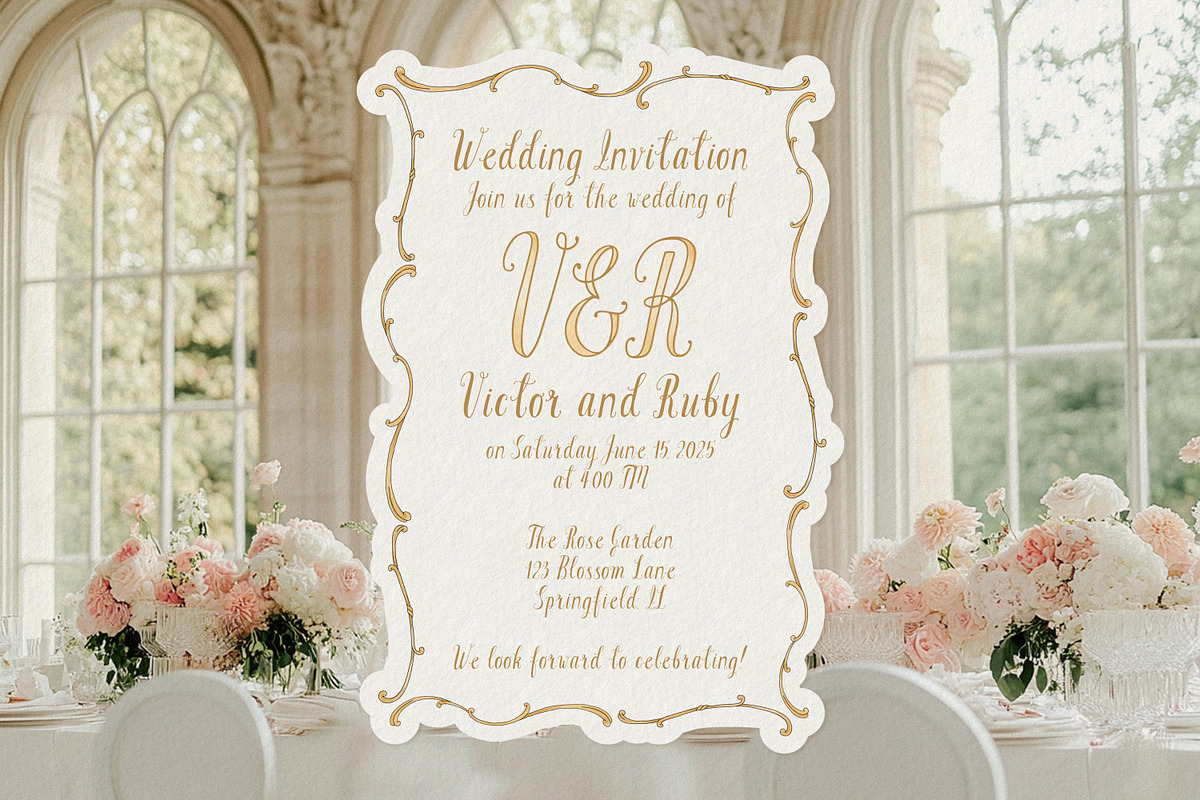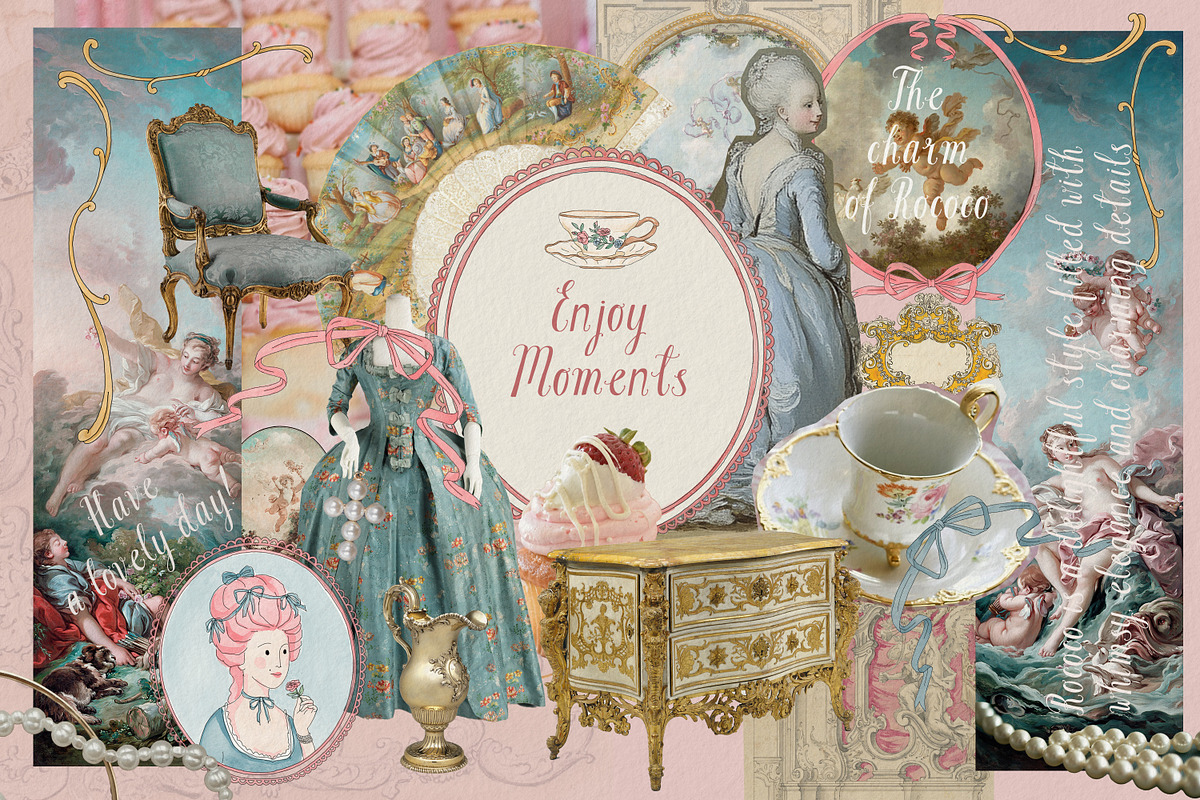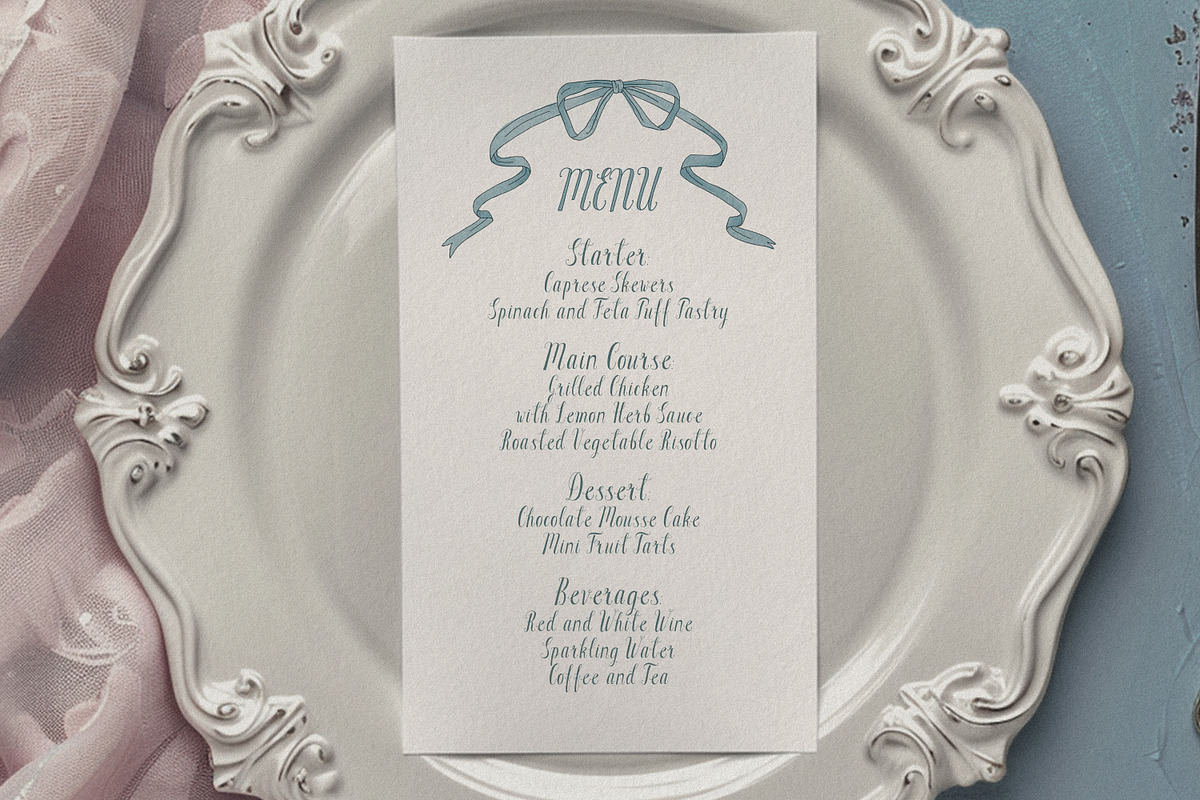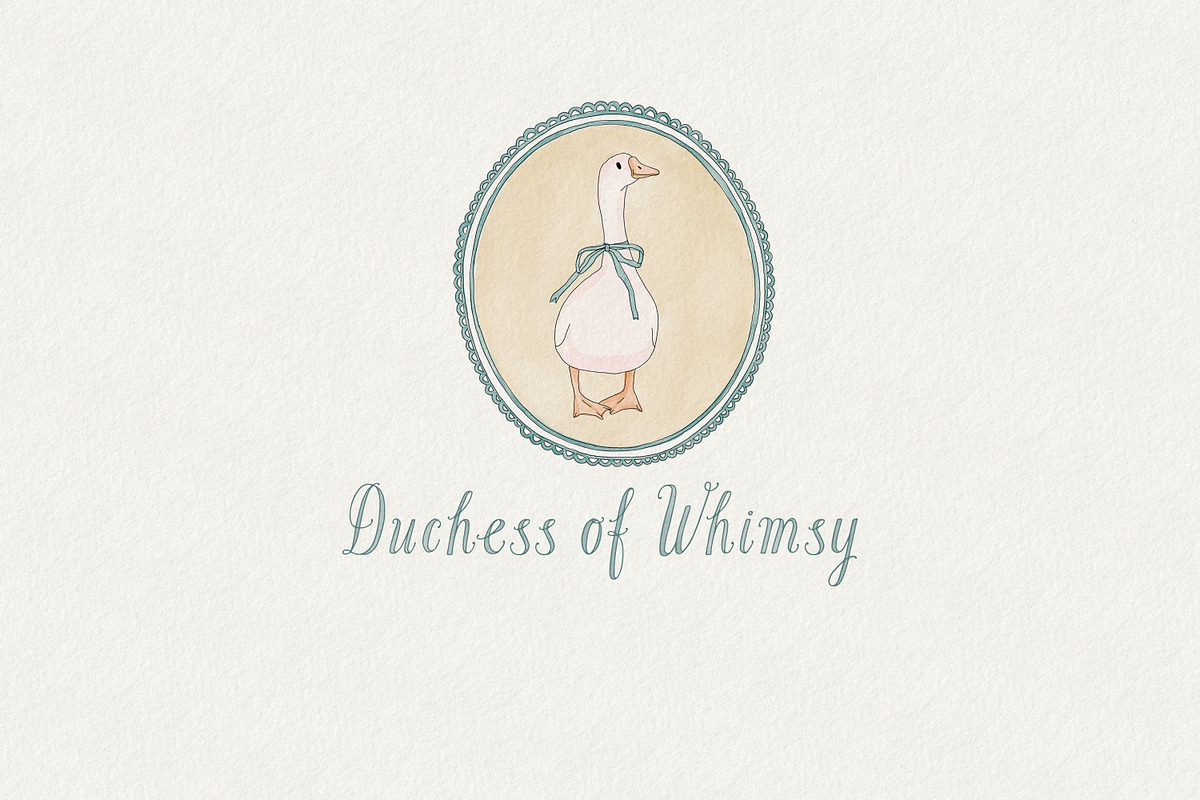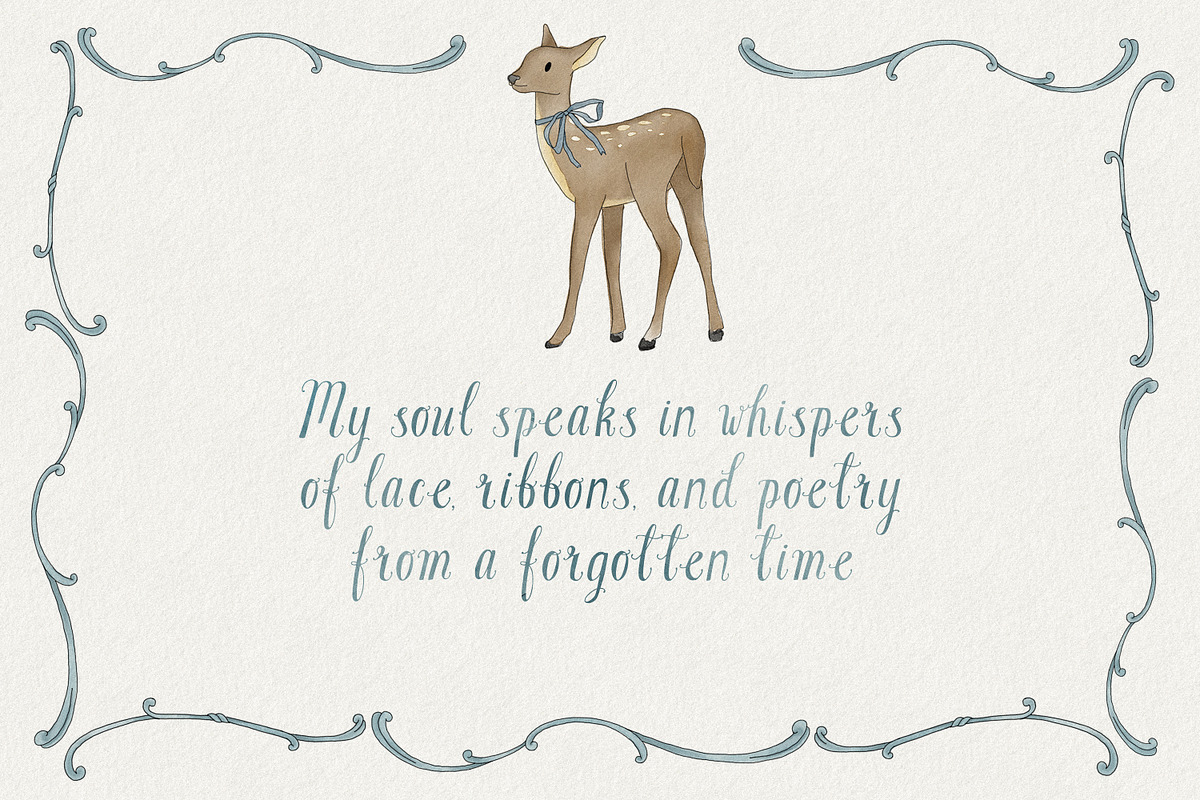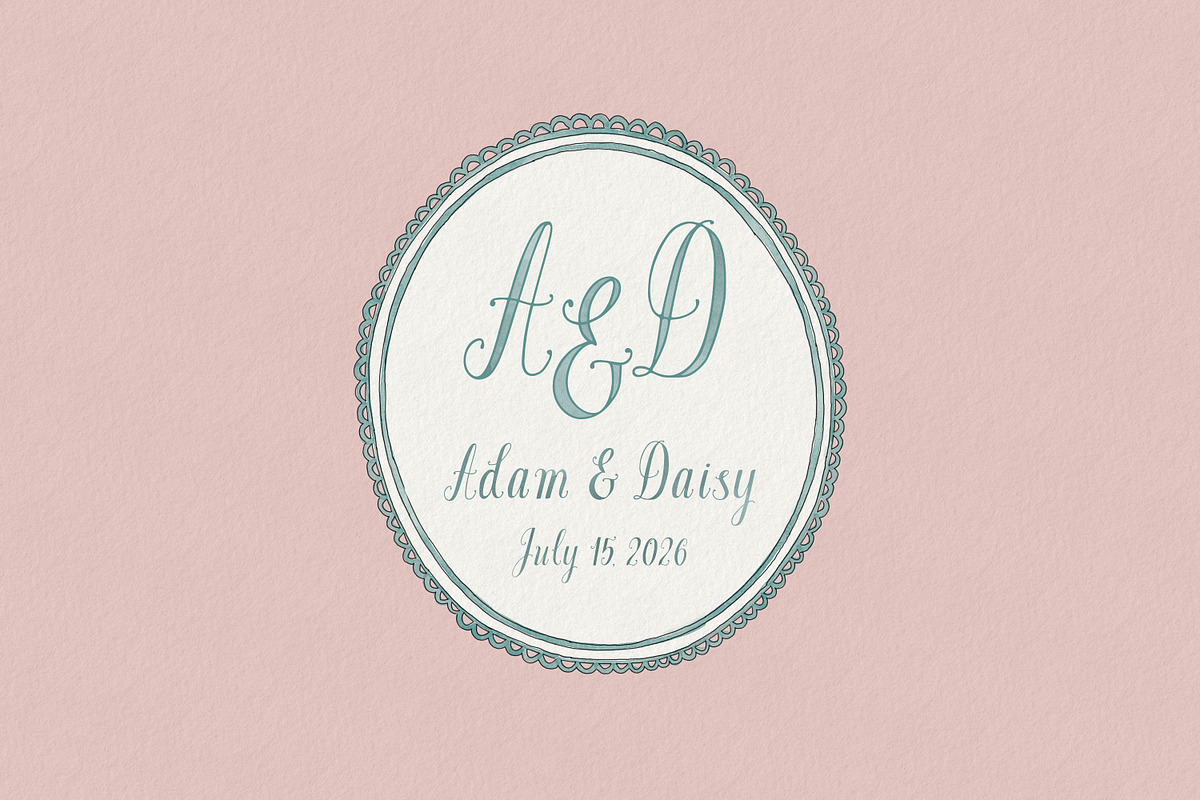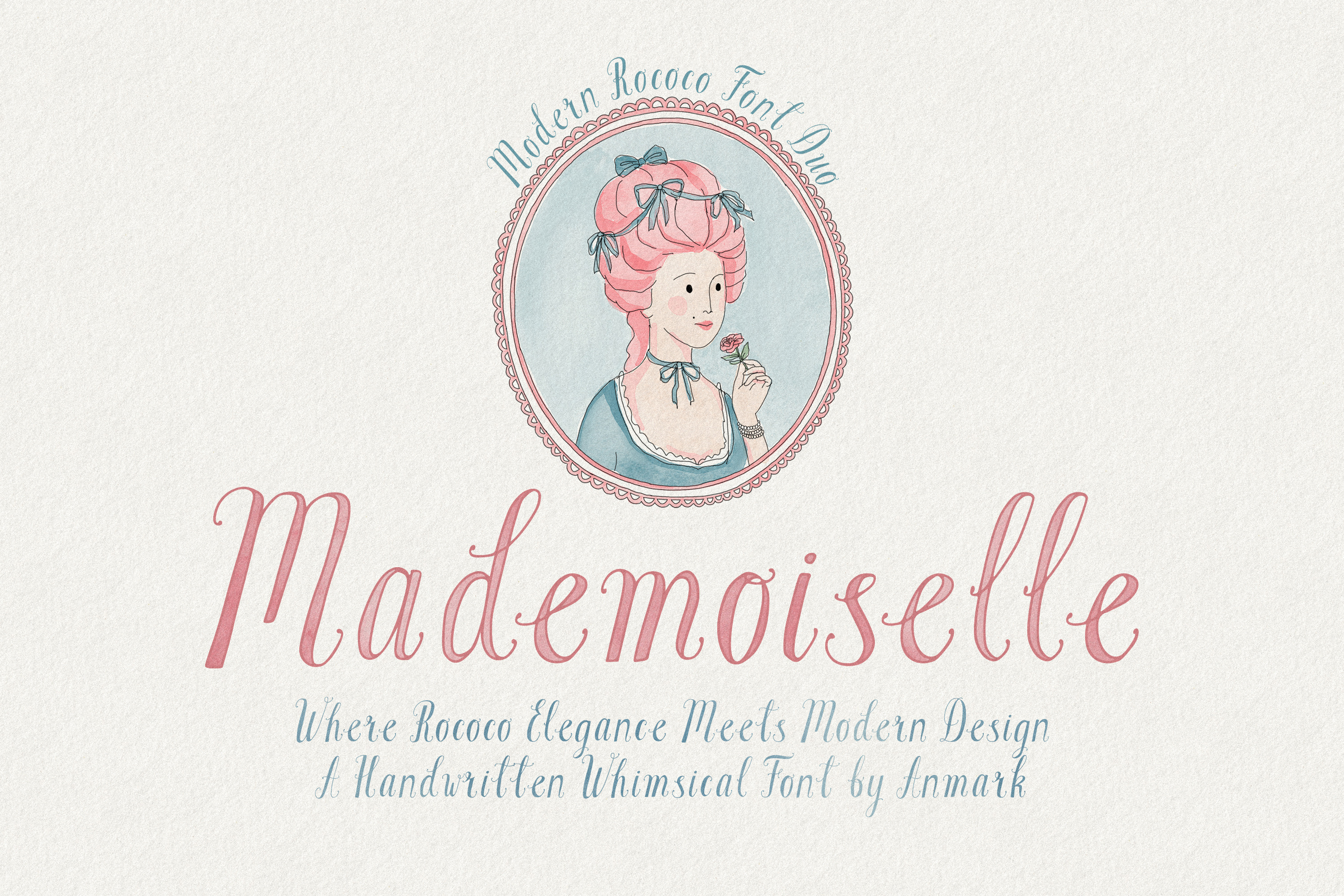
Mademoiselle Modern Rococo Font Duo
Mademoiselle is a refined Rococo Revival font duo that combines historical elegance with modern versatility. Inspired by the ornamental beauty of the 18th century, it brings a sense of sophistication and charm to any design. The typeface includes two styles: Regular, a delicate outline font with a graceful, vintage feel, and Bold, a full-bodied version perfect for making an impression. These styles work beautifully together or independently, offering flexibility for various creative projects.
The font supports multiple languages and includes a full set of uppercase and lowercase letters, punctuation, numerals, and carefully designed alternates and ligatures. Its elegant and whimsical character makes it ideal for wedding stationery, branding, logos, monograms, editorial design, book covers, social media graphics, and luxury packaging. Mademoiselle blends the romance of the past with the needs of contemporary design, making it a timeless addition to any project.